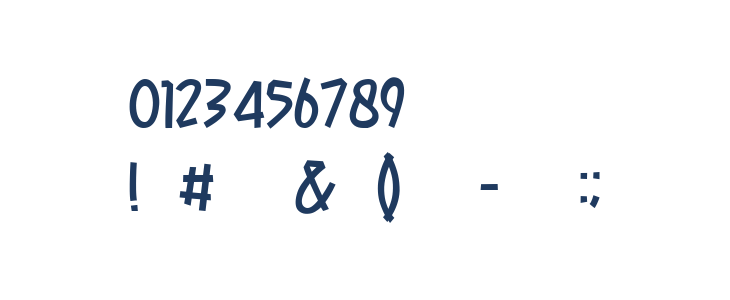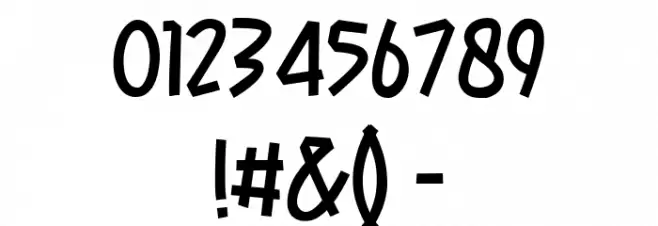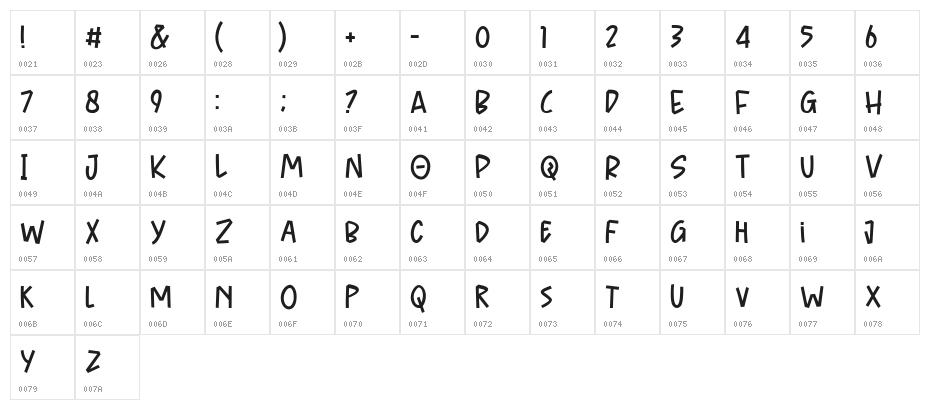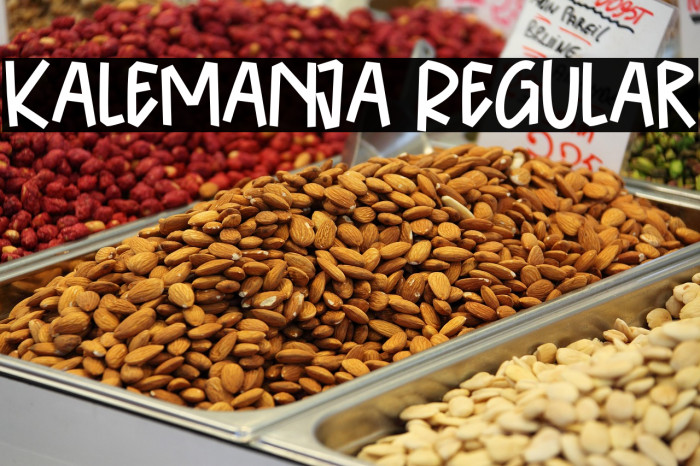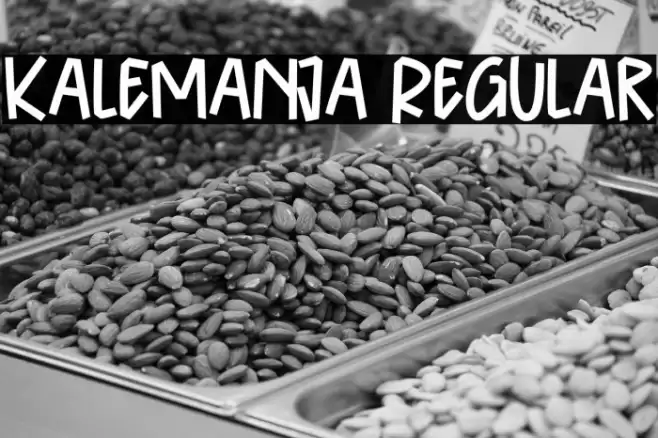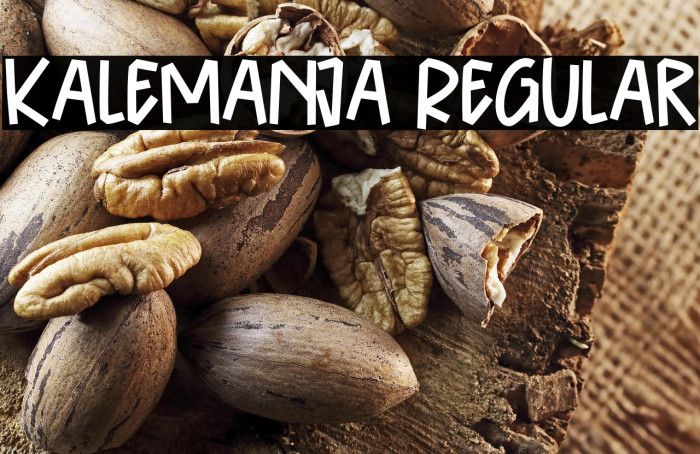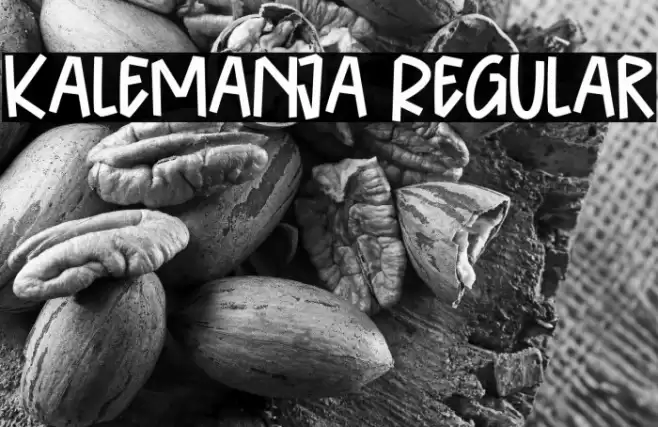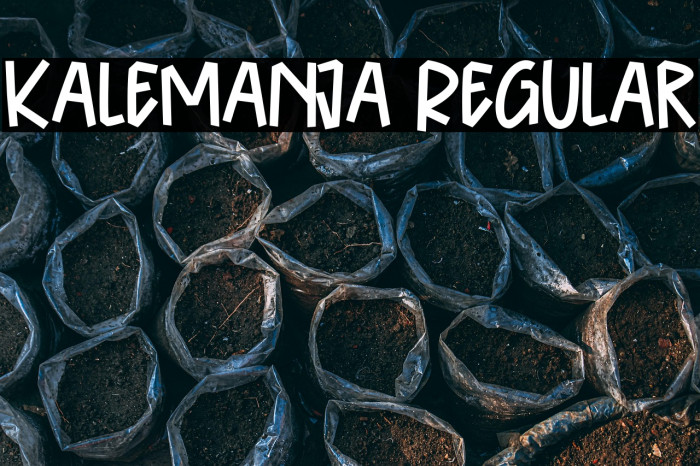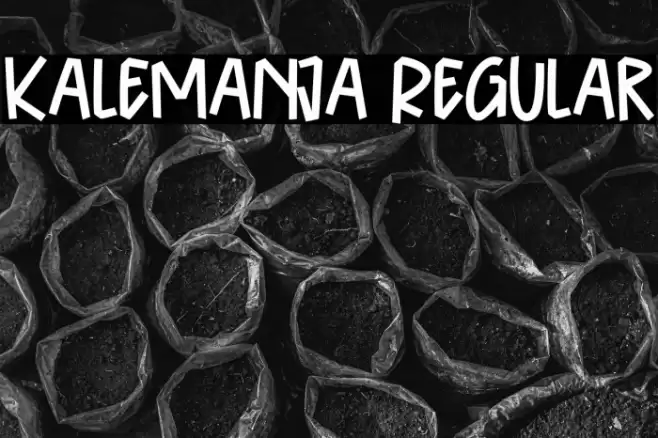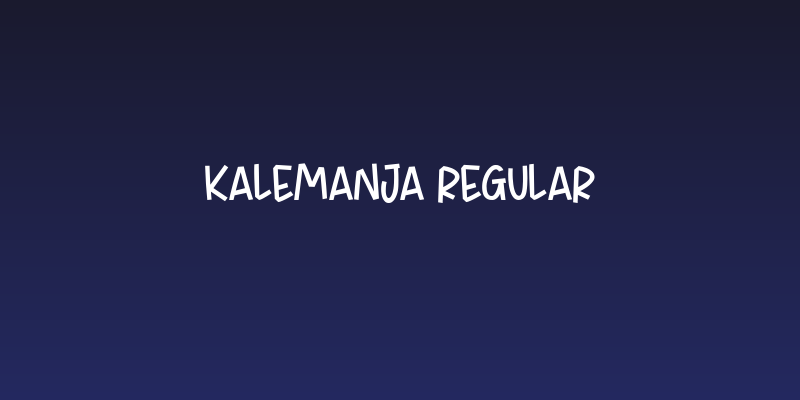
Kalemanja Regular Font
Kalemanja Regular Description
This font exhibits a playful and dynamic style with a hand-drawn appearance. The characters are bold and slightly irregular, giving them a lively and informal feel. The uppercase and lowercase letters maintain a consistent weight, while the numbers and special characters complement the overall aesthetic. The strokes are thick and uniform, contributing to the font's bold presence. The slightly uneven lines and angles add a whimsical touch, making it suitable for creative and casual projects. Its unique style stands out, making it ideal for attention-grabbing designs.
| Proposed Projects | Ideal for children's books, comic strips, playful branding, and creative posters. |